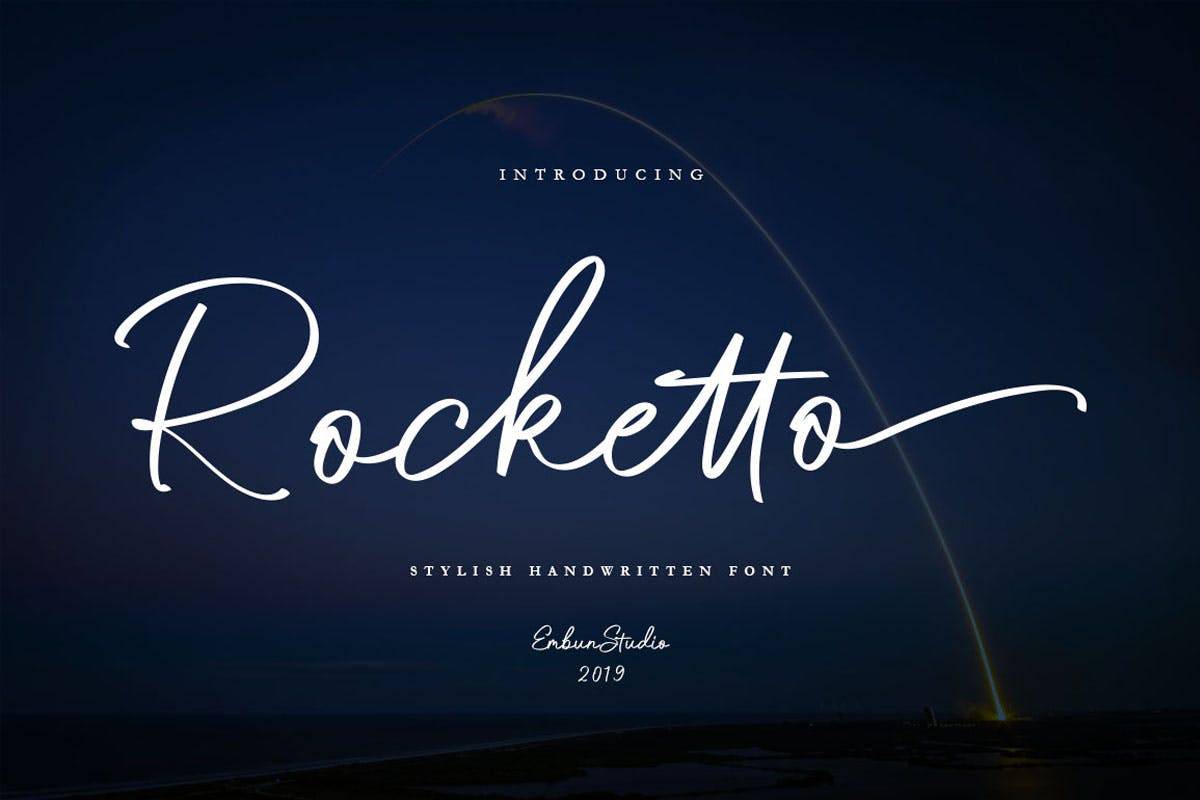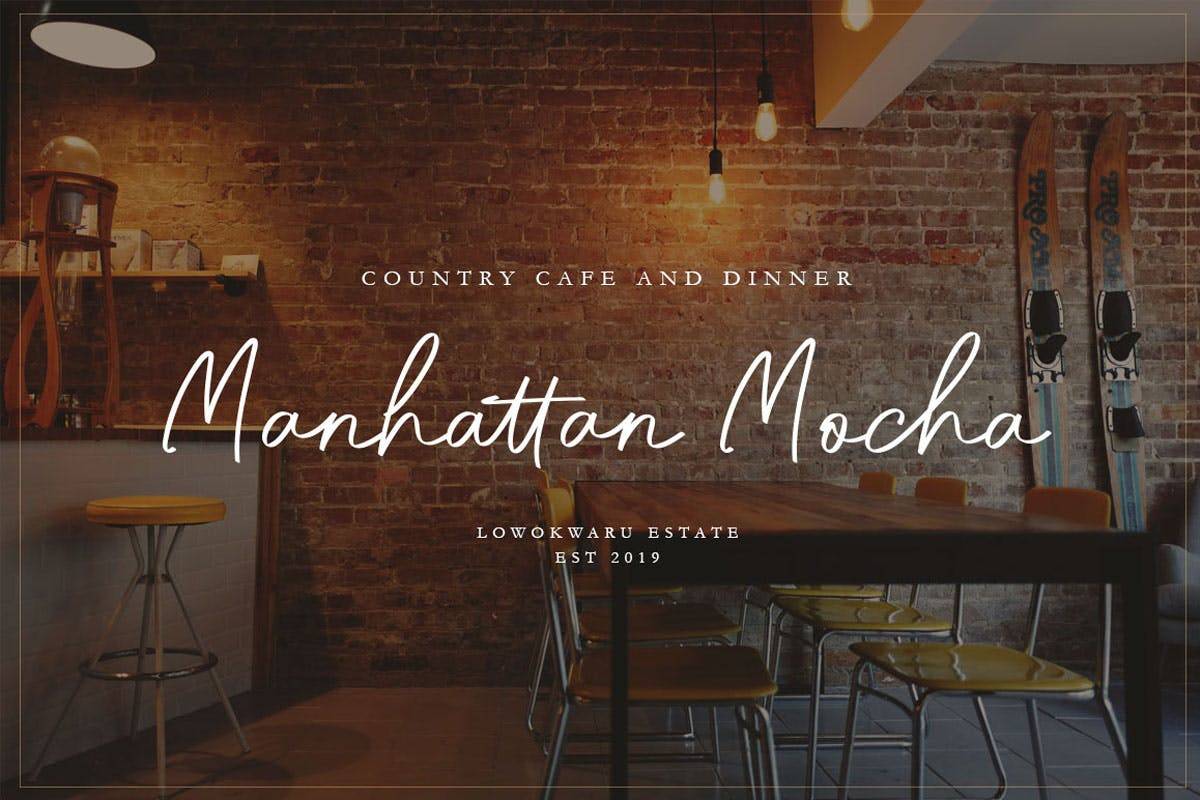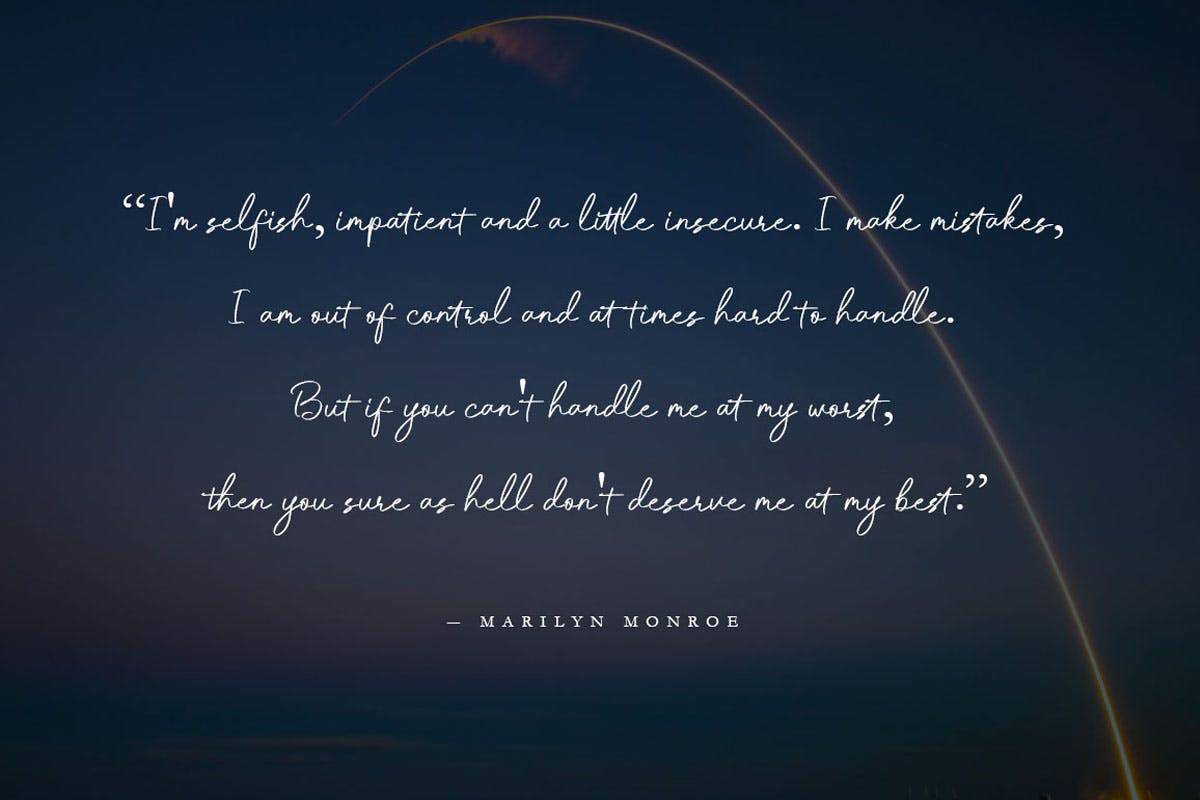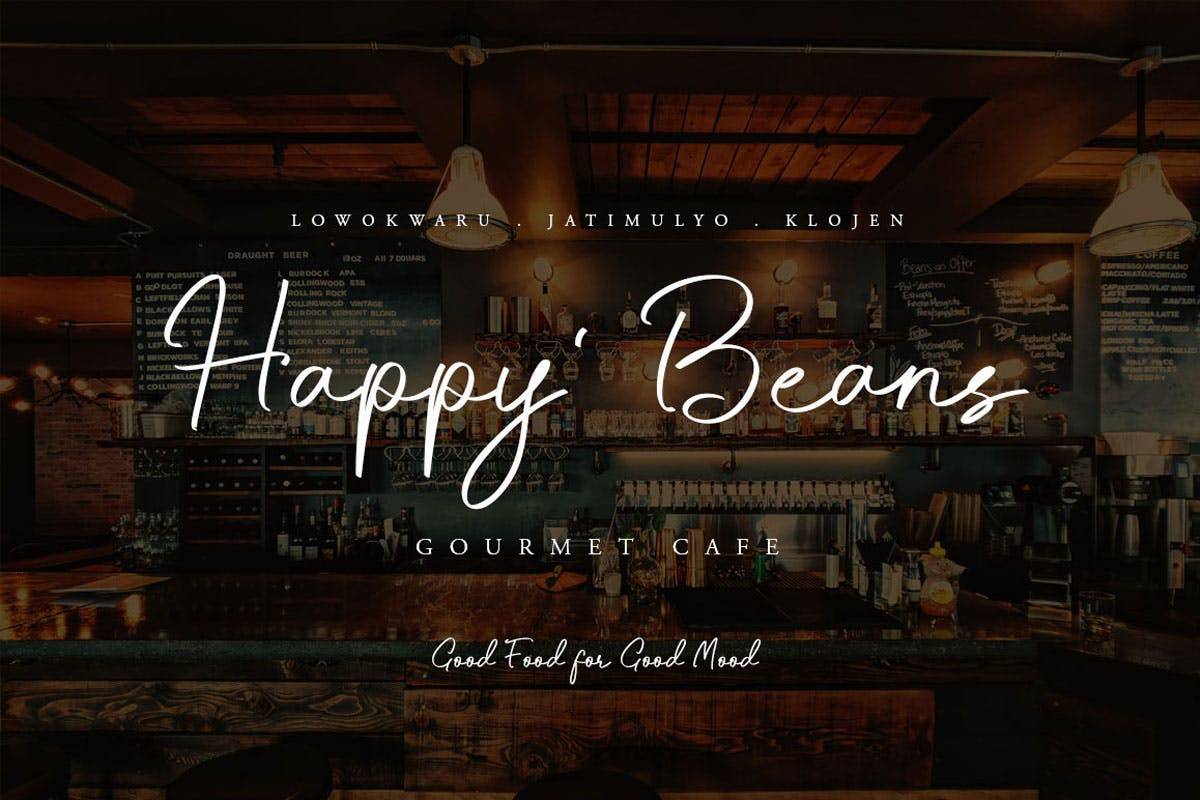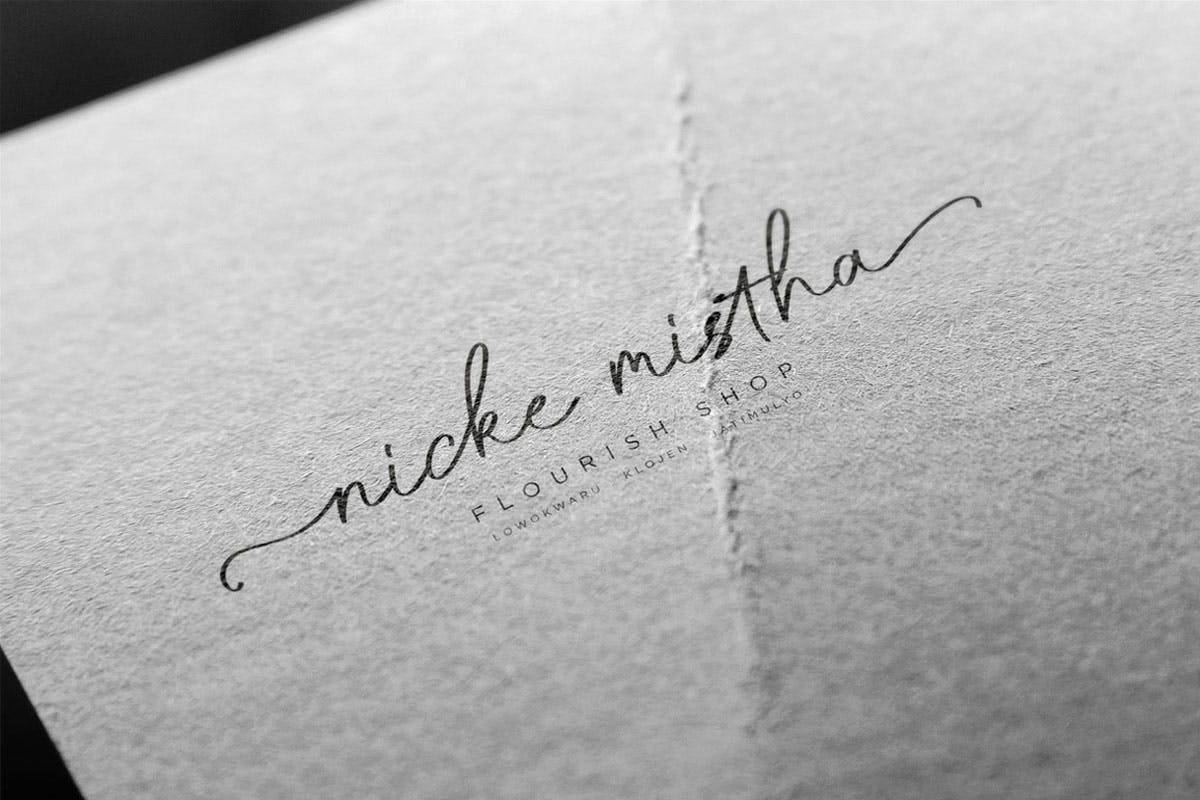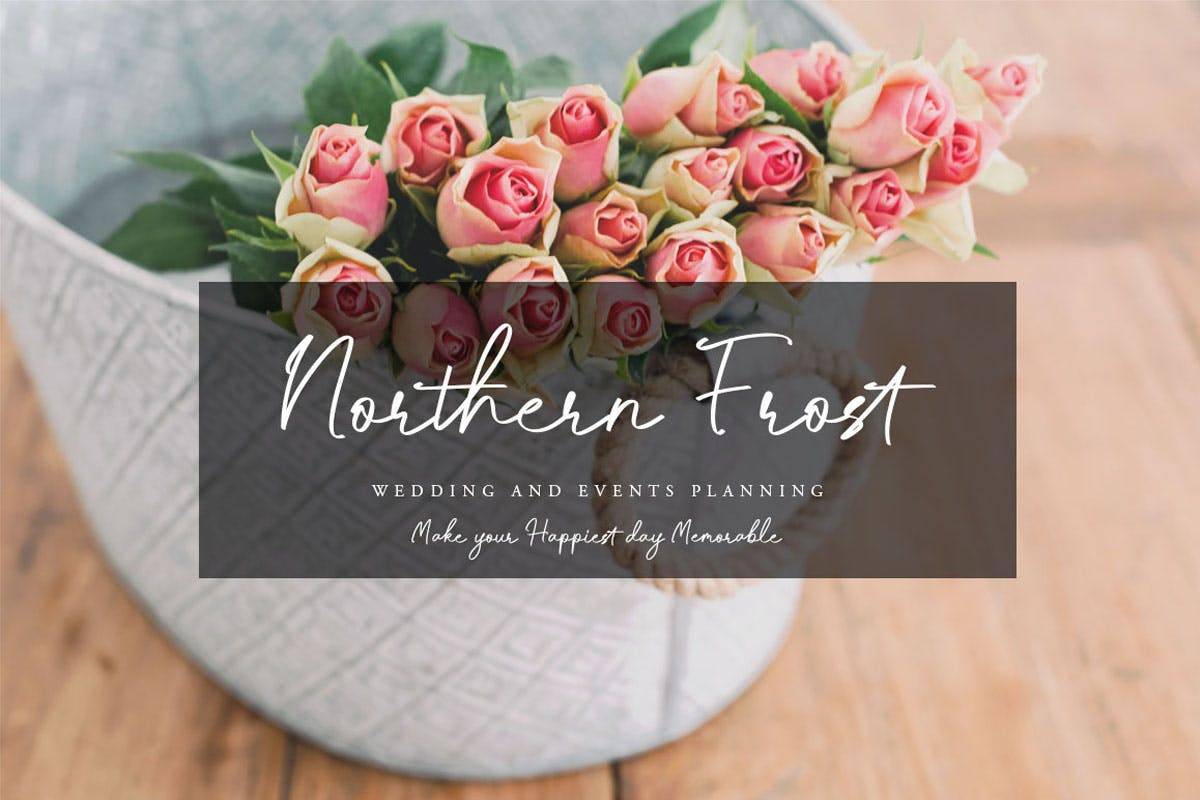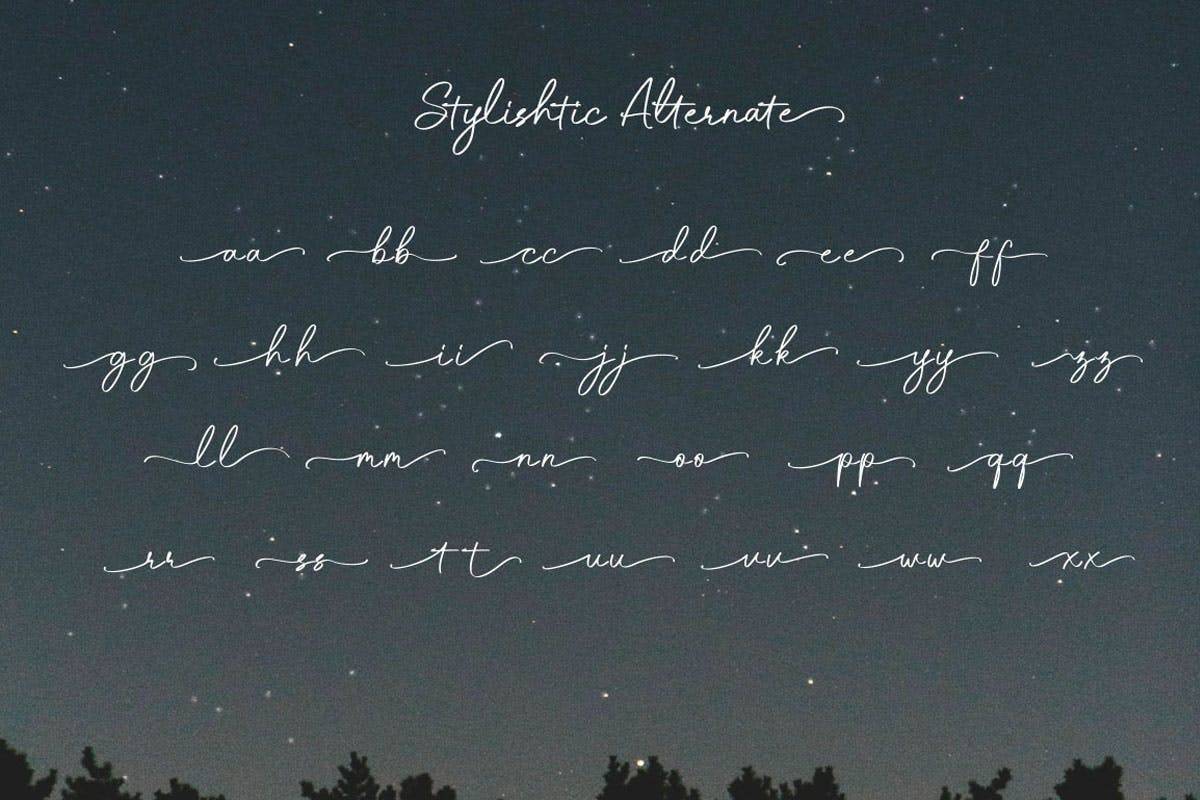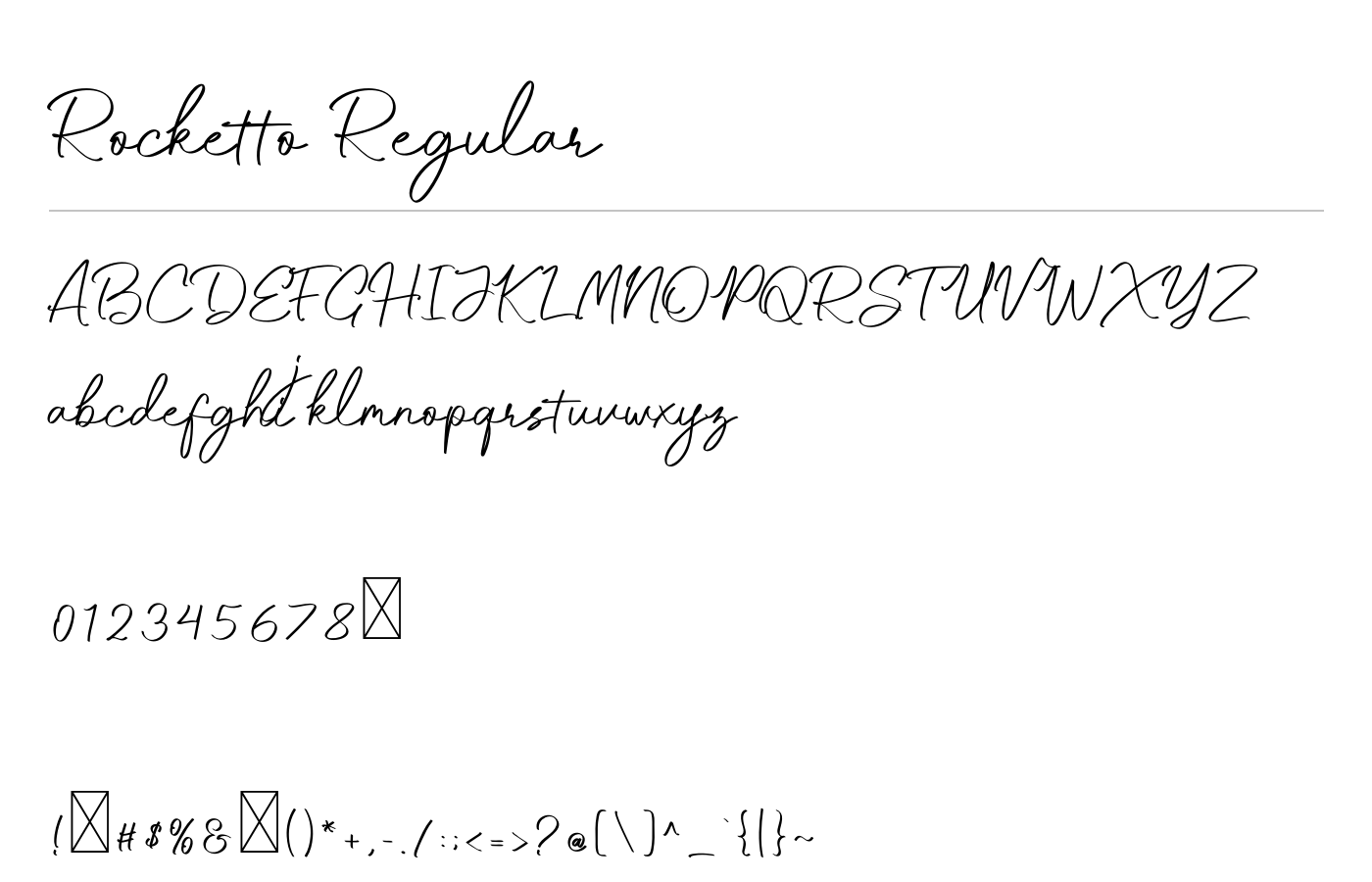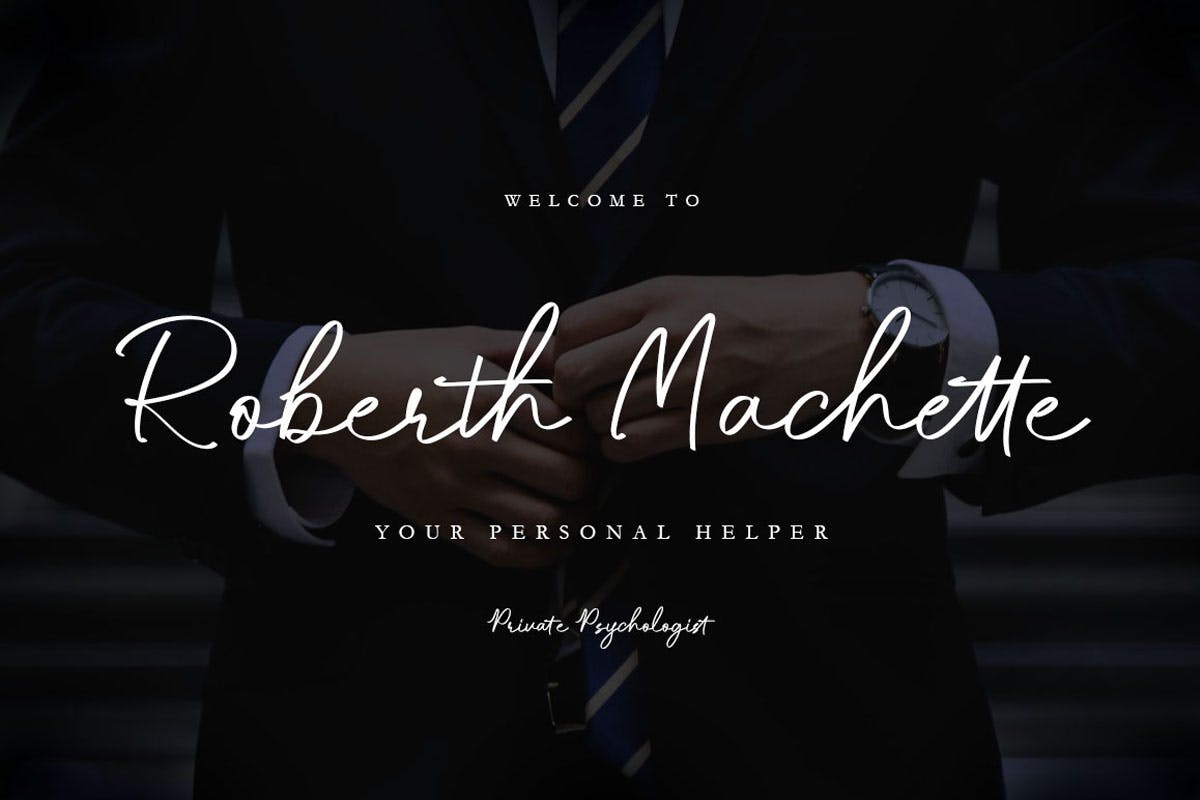
Rocketto Stylish Handwritten is a delicate, elegant script font with a light weight and a natural, flowing style that mimics authentic handwriting. Its tall, slim letterforms with subtle stroke variations create a sophisticated and personal touch, making it ideal for invitations, branding, and creative projects where a stylish yet approachable look is desired. This font works beautifully where a refined, friendly, and artistic feel is needed, adding charm and character without overpowering the design.
Rocketto Stylish Handwritten
About Rocketto Stylish Handwritten